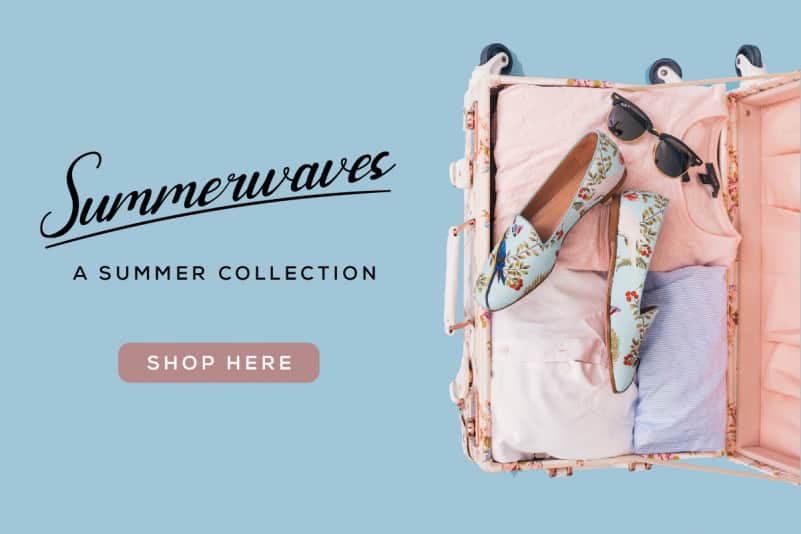
Antropological Calligraphy Font
Antropological Calligraphy Font is a beautiful calligraphy font with a stylish characters. This font is crafted carefully in every its single scratch, created to look as close to a natural handwritten script so that it can create the perfect combination on each glyph. When we make this font, we really want to create a touch that is so free-flowing that it gives a natural impression on its use later. For example, if you want letter ‘s’ that has a flow sketch with letter ‘t’, you can find it in ‘st’ ligature glyph (just type in the text form below for trying). This awesome script is for anyone who are needing of elegance and stylish for their designs.
Antropological Calligraphy Font includes full set of Uppercase and Lowercase Basic Characters, Numerals and Punctuation. Also it contains ligatures and alternates characters to perfectly make natural calligraphy look that add more beautiful and aesthetic fonts to perfect your extraordinary project. Antropological will be awesome for wedding, engagement, branding, invitations etc